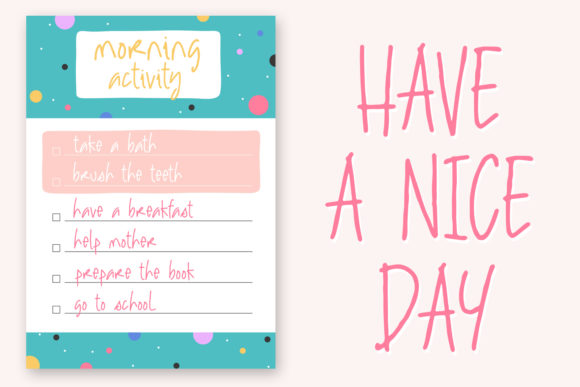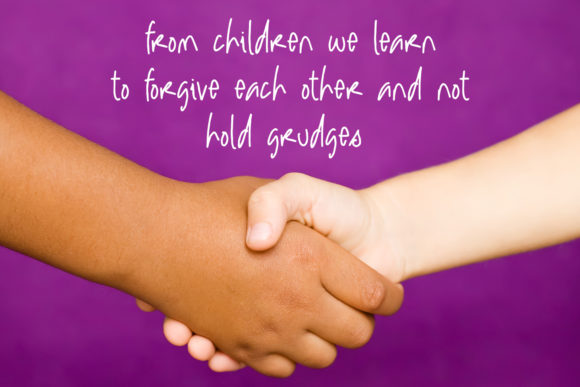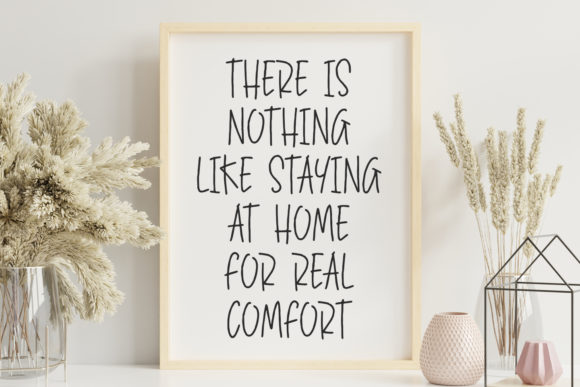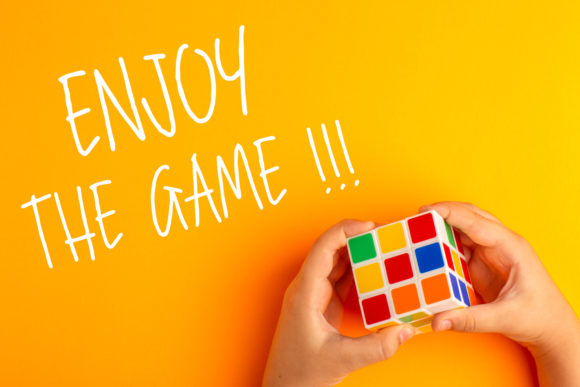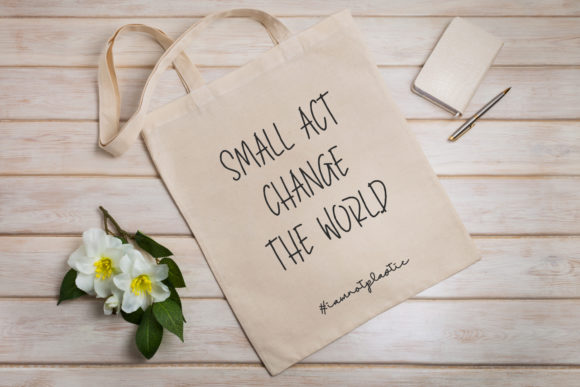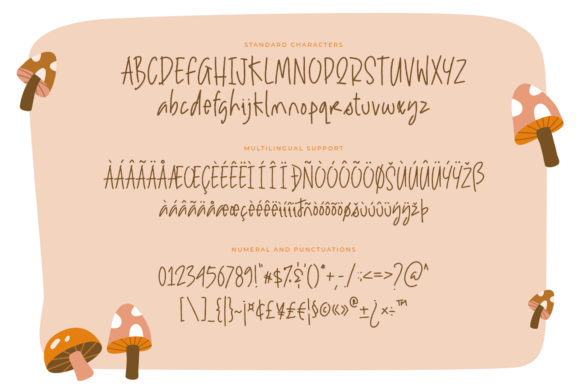
Introduction to Kidstore Font
Kidstore is a unique and interesting handwritten font.
Incredibly versatile, this font will fit a wide pool of designs Fall in love with its incredibly stylish look and use it to create spectacular designs.